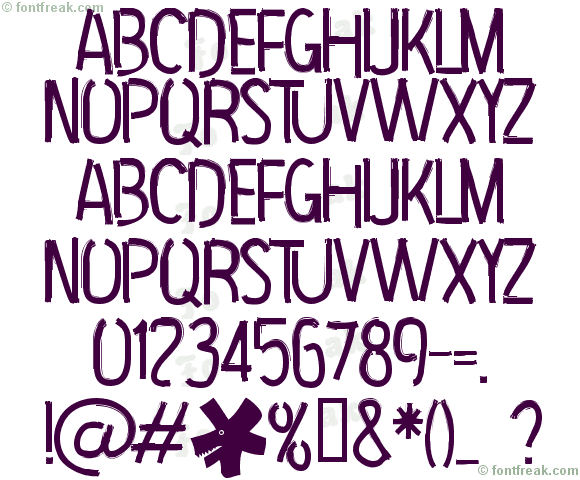
Hip Priest
About Hip Priest
Hip Priest by Popdog Fonts is a unique display font that embodies a playful yet edgy aesthetic. This freeware font features a distinctive design characterized by its bold, uneven strokes and a slightly rustic charm. The letters are crafted with a medium stroke weight, giving them a substantial presence while maintaining a casual, hand-drawn feel. The spacing between characters is intentionally varied, adding to its organic appearance and making it ideal for eye-catching headlines or titles.
The Hip Priest font is perfect for a variety of creative applications. It shines in projects like music festival posters, where its quirky and youthful vibe can capture attention. Additionally, it works well for urban-themed restaurant menus, providing a modern yet laid-back look that complements contemporary dining experiences. Graphic designers may find it suitable for branding materials, especially for businesses aiming to convey a hip, artistic identity. Content creators can also leverage this font for social media graphics, adding a distinctive flair to promotional content.
Targeted at graphic designers, small business owners, and content creators, Hip Priest offers versatility and character that resonates with a creative audience. Its unique style allows for individual expression, making it a great asset for various design projects.
What sets the Hip Priest font apart is its ability to blend fun with functionality. The combination of its bold yet informal aesthetic makes it an ideal choice for projects that require a touch of personality. Whether you're designing for print or digital media, the Hip Priest font free download provides an exciting option that elevates your work and engages your audience. Embrace the charm of Hip Priest and let your creativity flow.